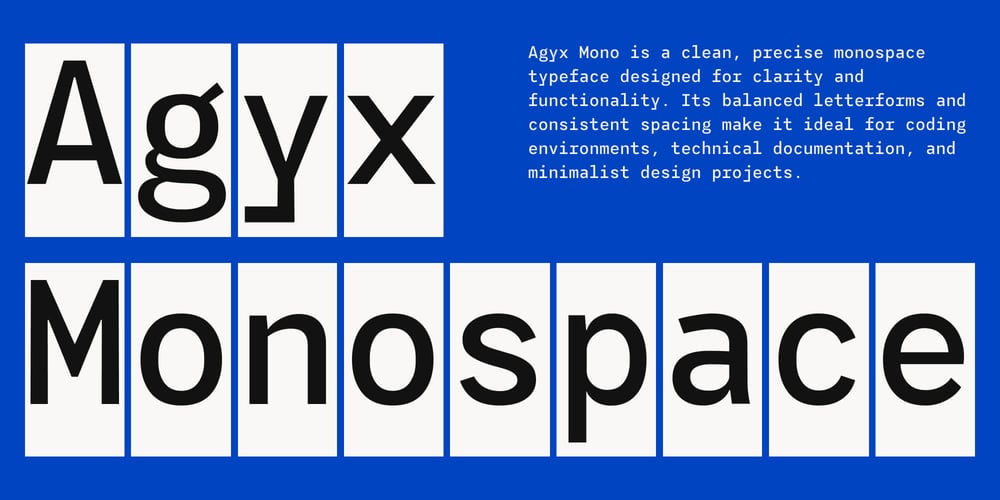
Agyx Mono
Agyx Mono font
Agyx Mono Font Family was designed by Moch Fitrah Hidayat and published by Fitrah Type. Agyx Mono contains 7 styles and family package options. Agyx Mono is a clean, precise monospace typeface designed for clarity and functionality. Its balanced letterforms and consistent spacing make it ideal for coding environments, technical documentation, and minimalist design projects. With a modern, streamlined aesthetic, Agyx Mono ensures optimal readability. With a subtle character and balanced proportions, Agyx Mono delivers clarity without sacrificing style.